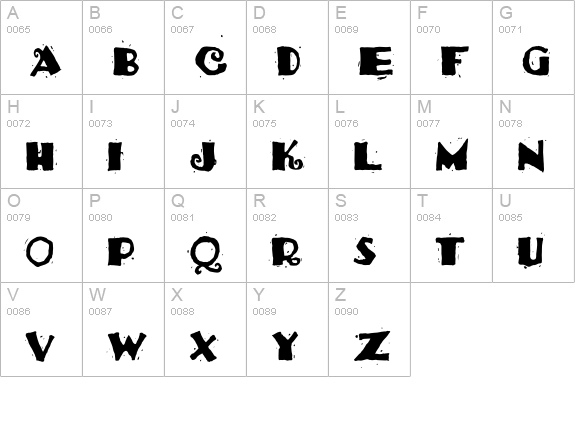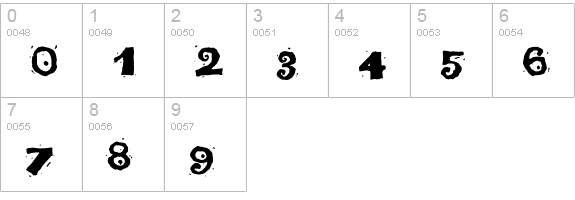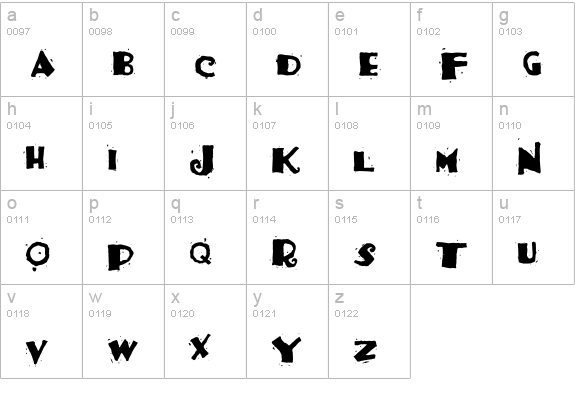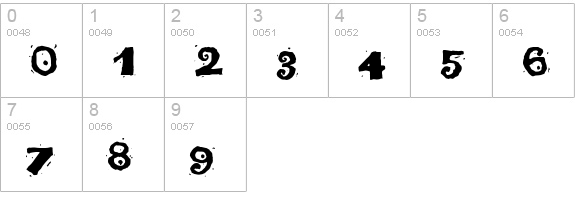
VTCojones Font Details
Introducing VTCojones, a captivating and versatile font that will inject a sense of boldness and confidence into your creative projects. With its sleek and striking design, VTCojones is the perfect choice for those seeking to make a powerful statement. This font boasts an impressive range of uppercase and lowercase letters, as well as numerals and punctuation marks, ensuring that it can adapt to any design need. Whether you're crafting eye-catching headlines, designing impactful logos, or creating stunning branding materials, VTCojones will effortlessly elevate your work to new heights. But what sets VTCojones apart is not just its stunning aesthetic, it's also the fact that it is available for free! That's right, you can download this incredible font without spending a dime. Simply head over to FontsMarket.com, and within a few clicks, VTCojones will be yours to explore and utilize in all your creative endeavors. So, why wait? Unleash the power of VTCojones and let your designs speak volumes. Download this captivating font today and experience the seamless blend of style, charisma, and affordability. Don't miss out on this incredible opportunity to enhance your creative vision - VTCojones is waiting for you at FontsMarket.com.